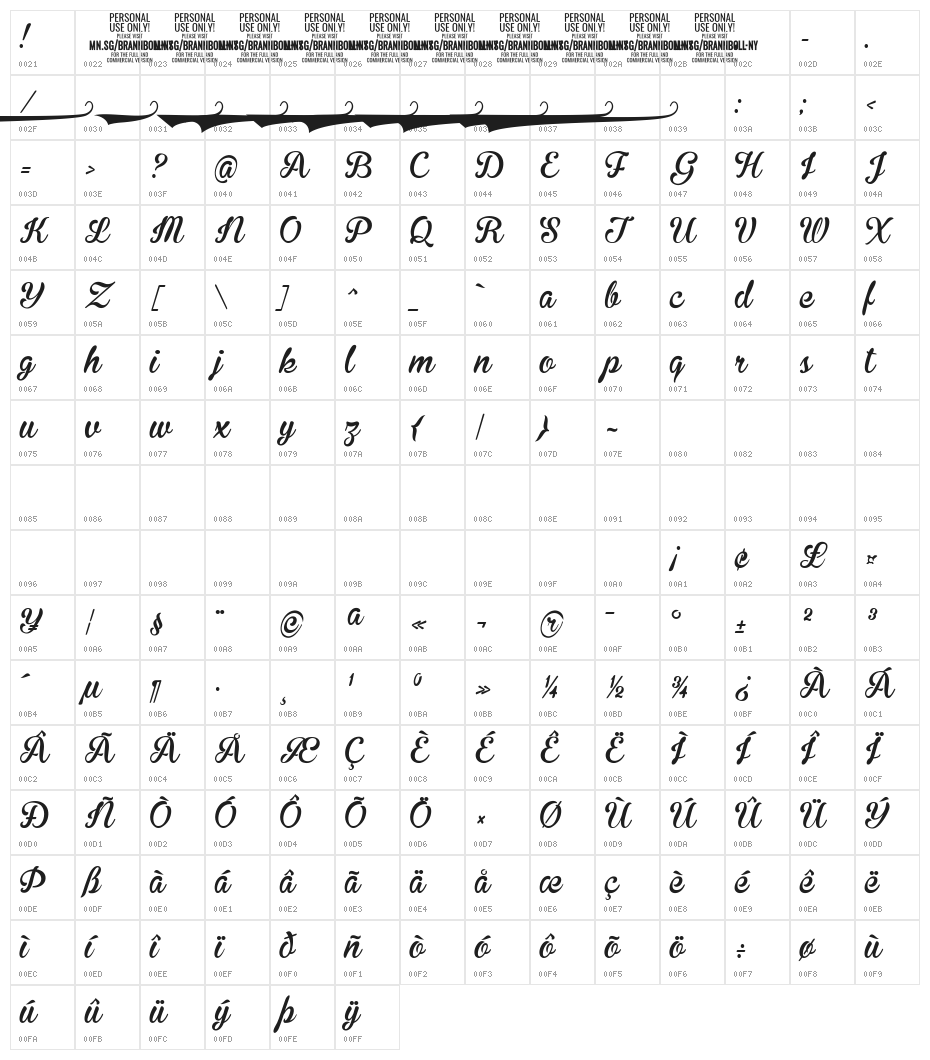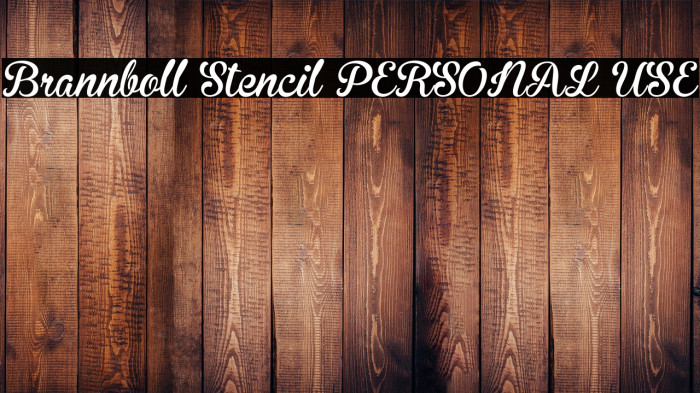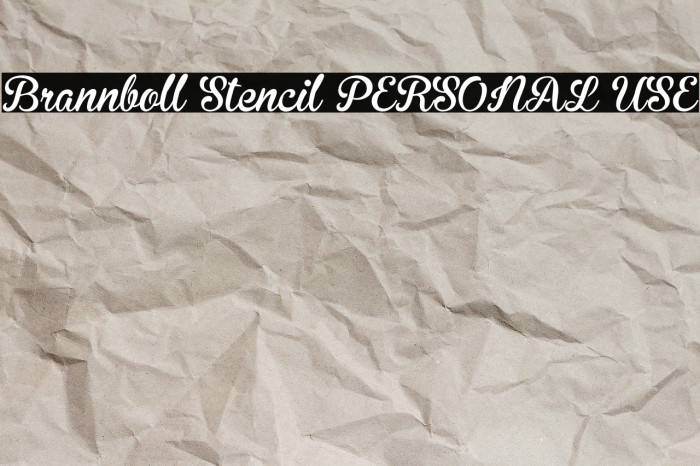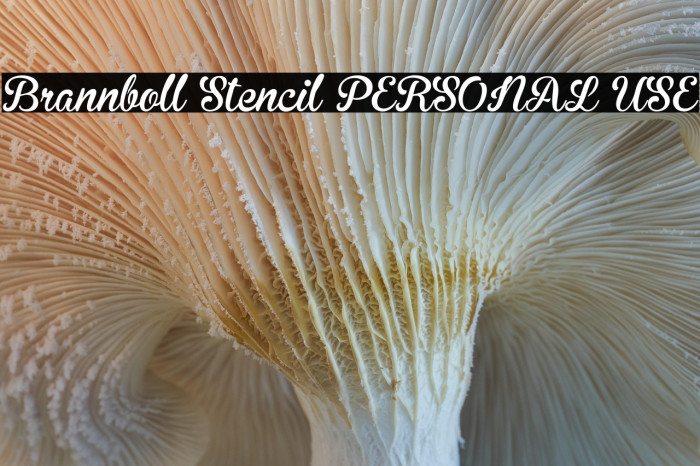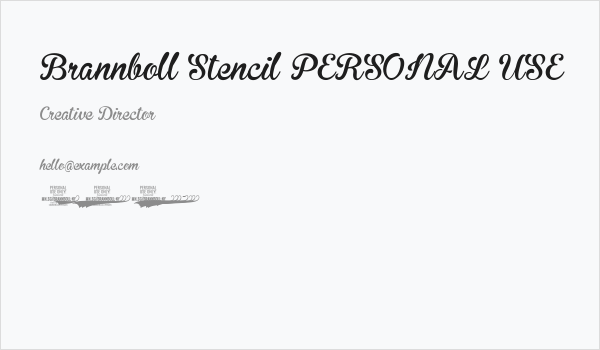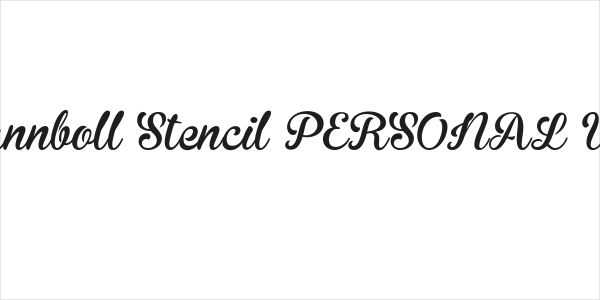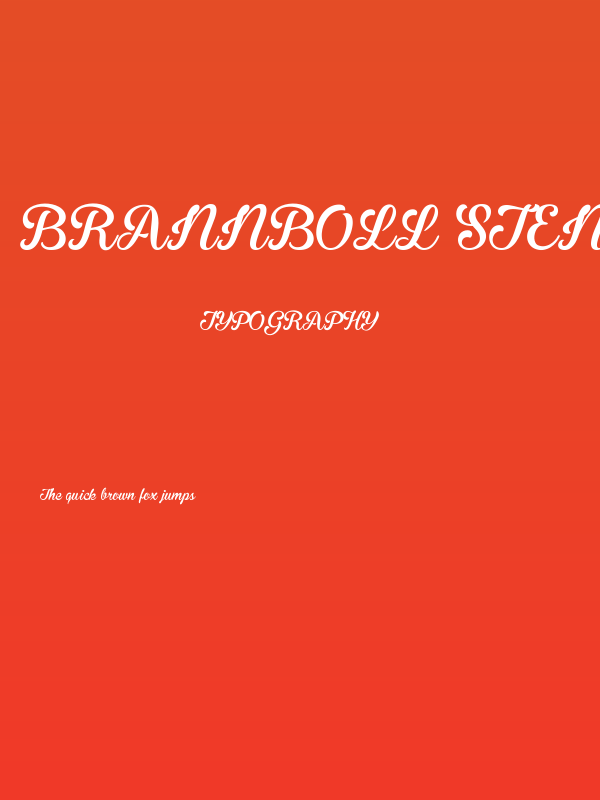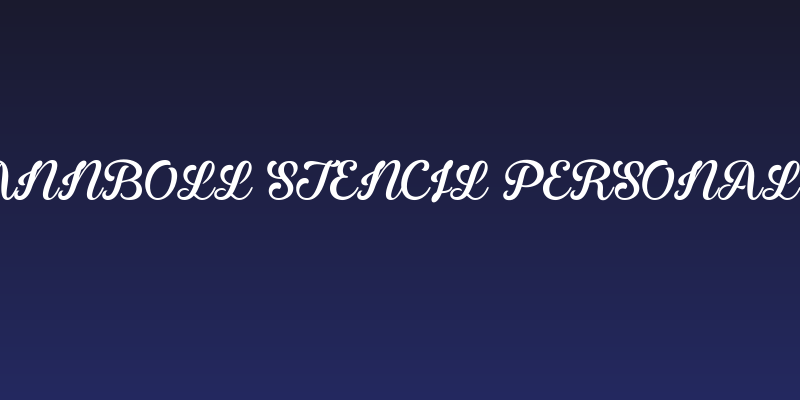
Brannboll Stencil PERSONAL USE Font
Brannboll Stencil PERSONAL USE Description
This font features a bold, flowing script style with a stencil effect, giving it a unique and artistic appearance. The uppercase letters are elegantly connected, while the lowercase letters maintain a smooth, cursive flow. The font's design incorporates a playful yet sophisticated aesthetic, making it suitable for creative projects. The characters are well-spaced, allowing for readability despite the intricate design. The font includes a full set of uppercase and lowercase letters, numerals, and a selection of special characters, all maintaining the consistent stencil theme.
| Use Case | Logos, Invitations, Decorative Signage |
| Proposed Projects | Ideal for branding, logos, invitations, and decorative signage. |